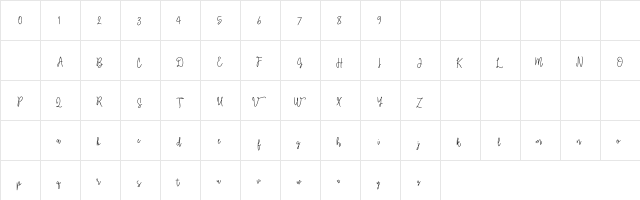
Moonlinetwo Regular
Design Context for Moonlinetwo Typeface
Moonlinetwo is a composed and adaptable typeface that performs quietly and consistently across a wide range of design contexts.